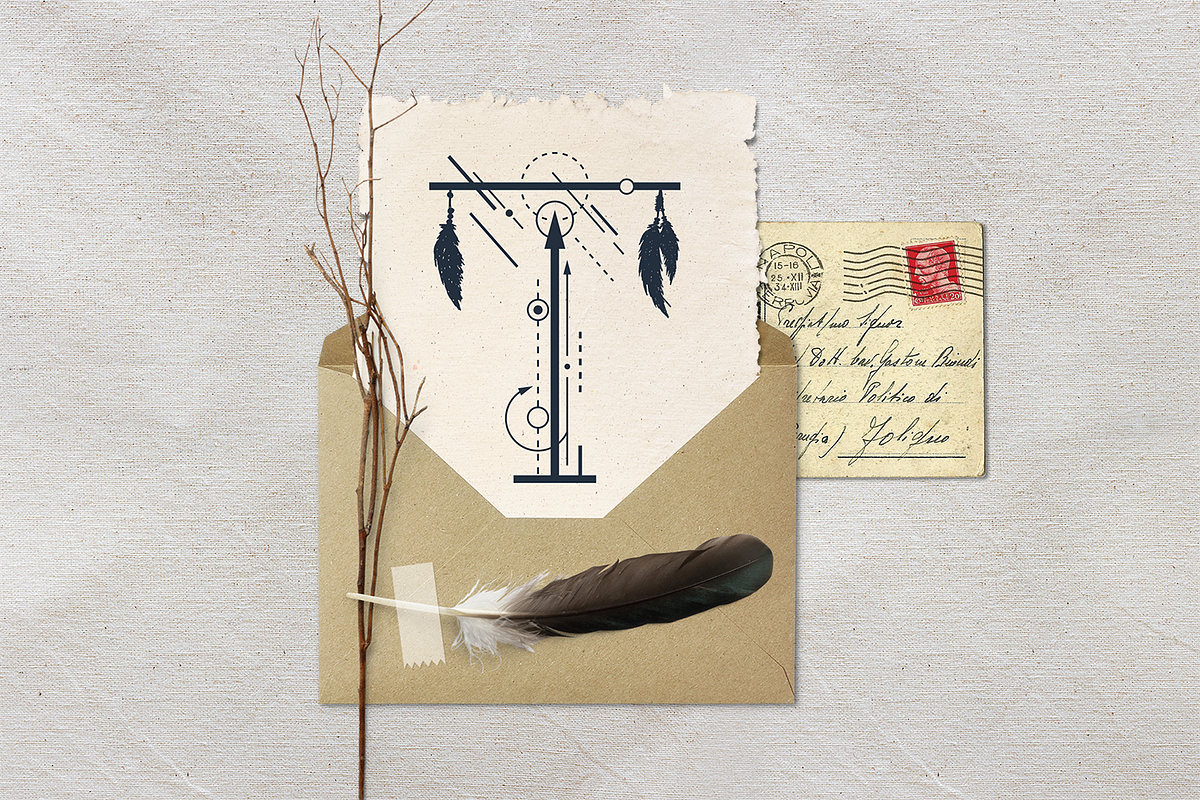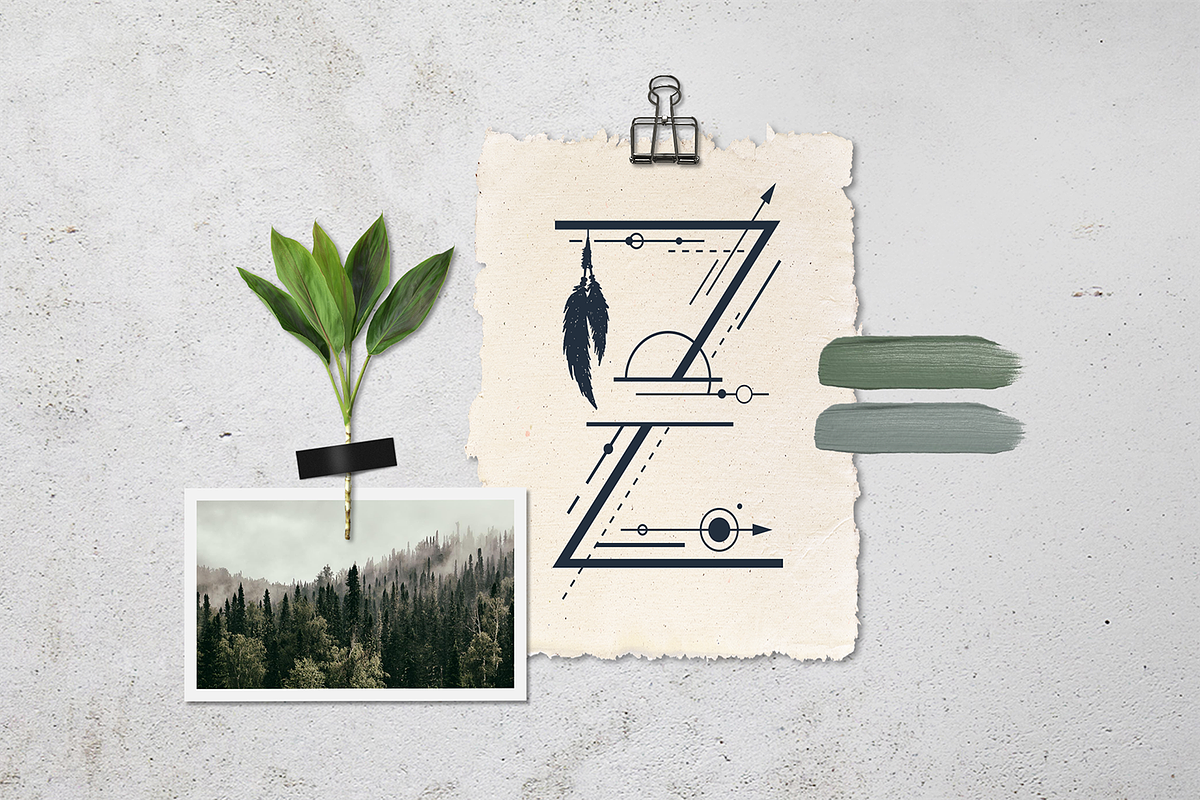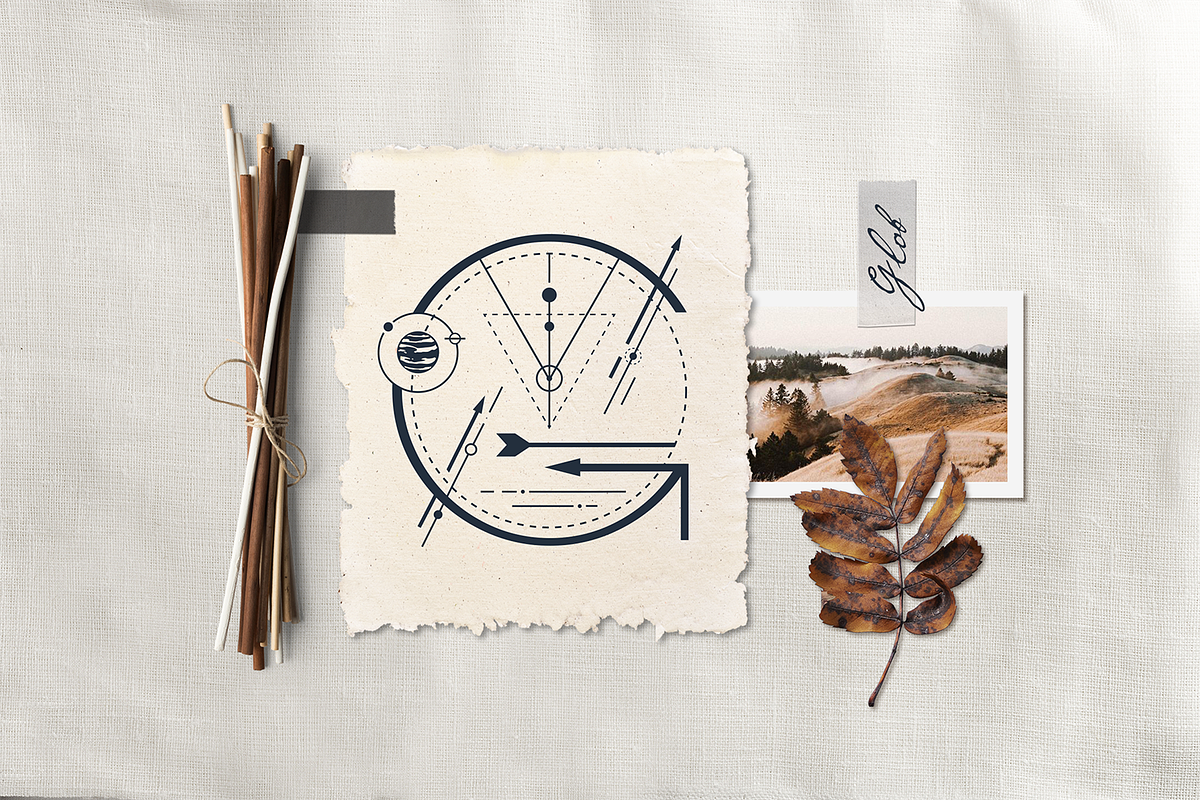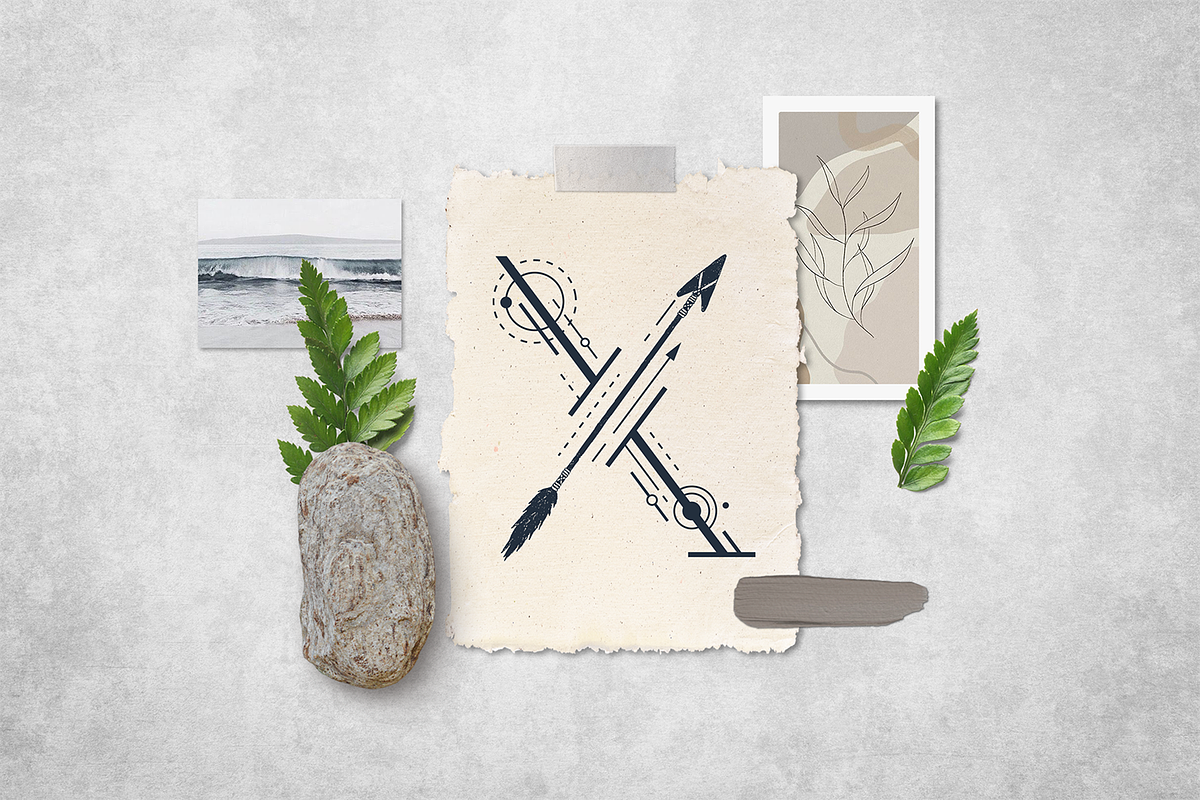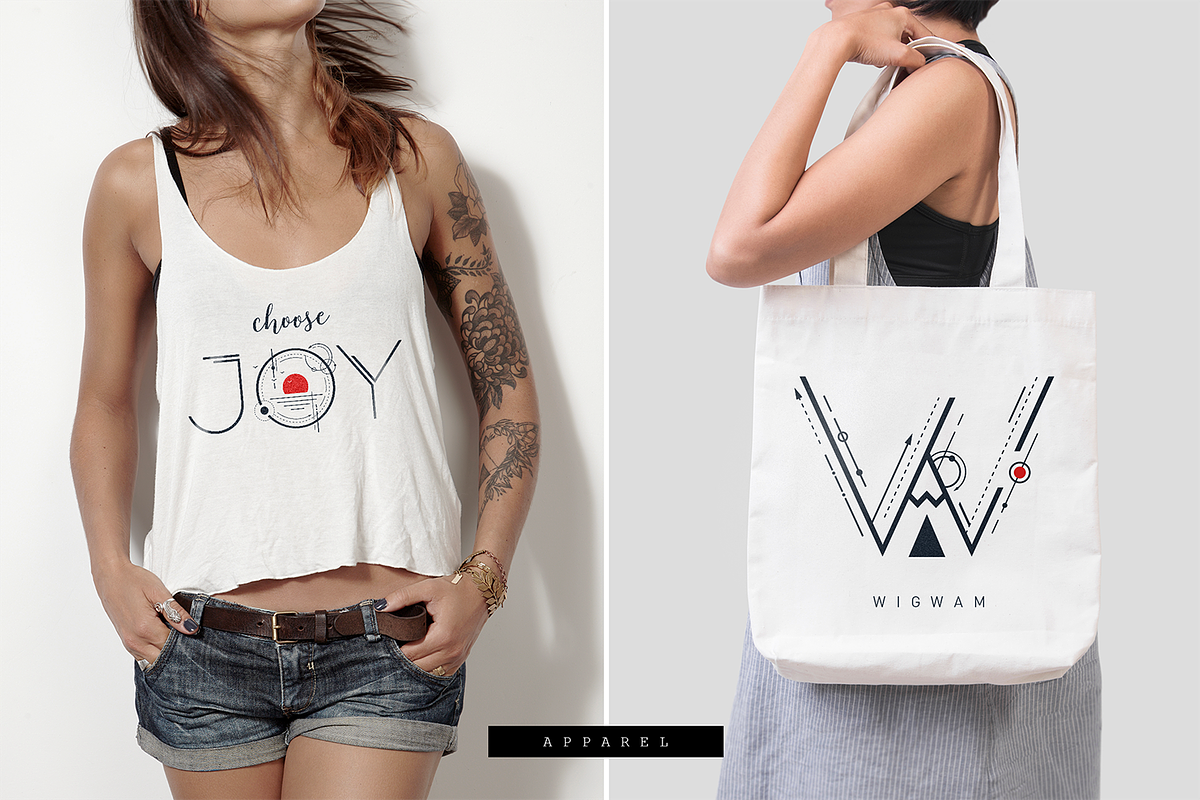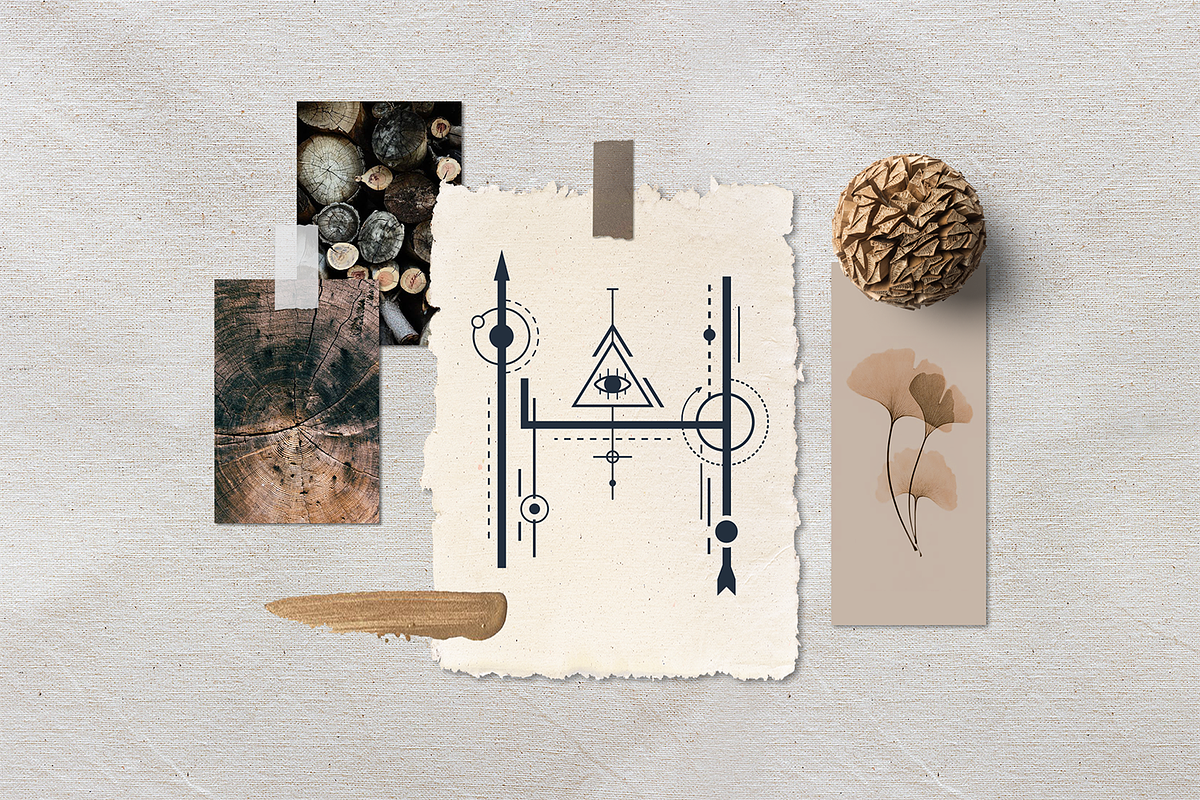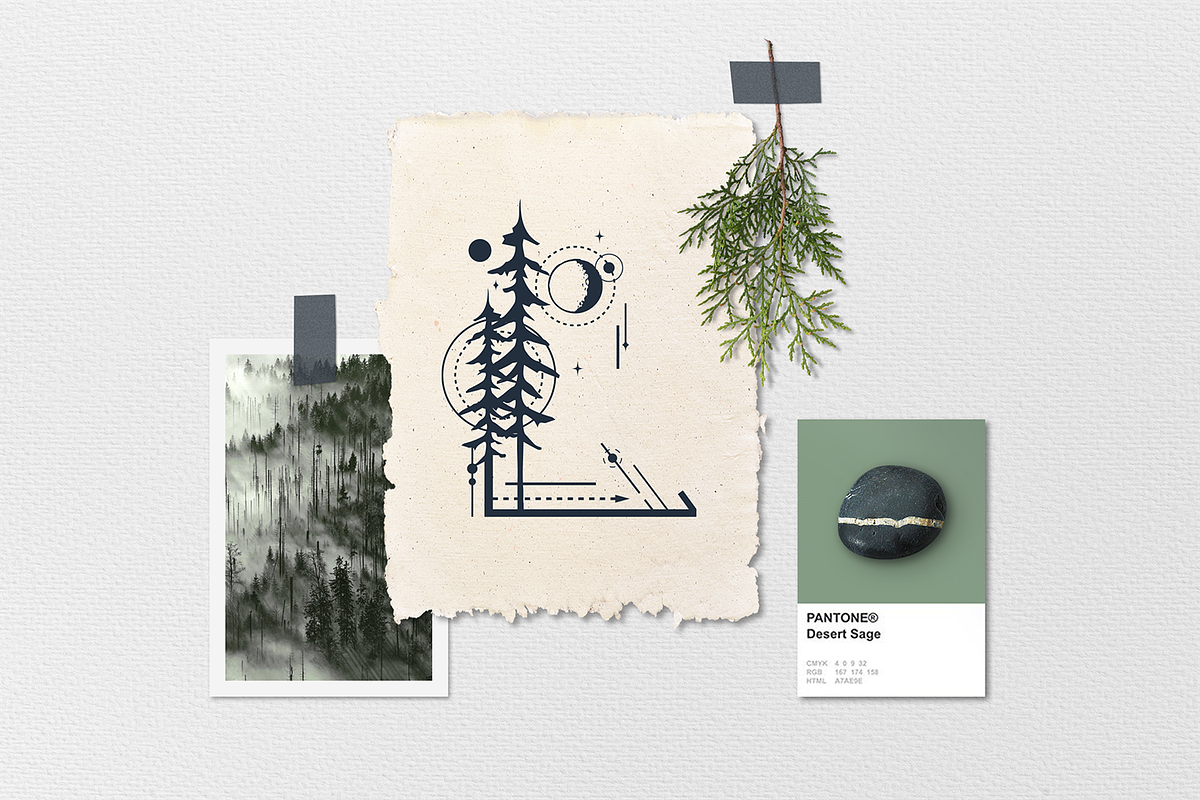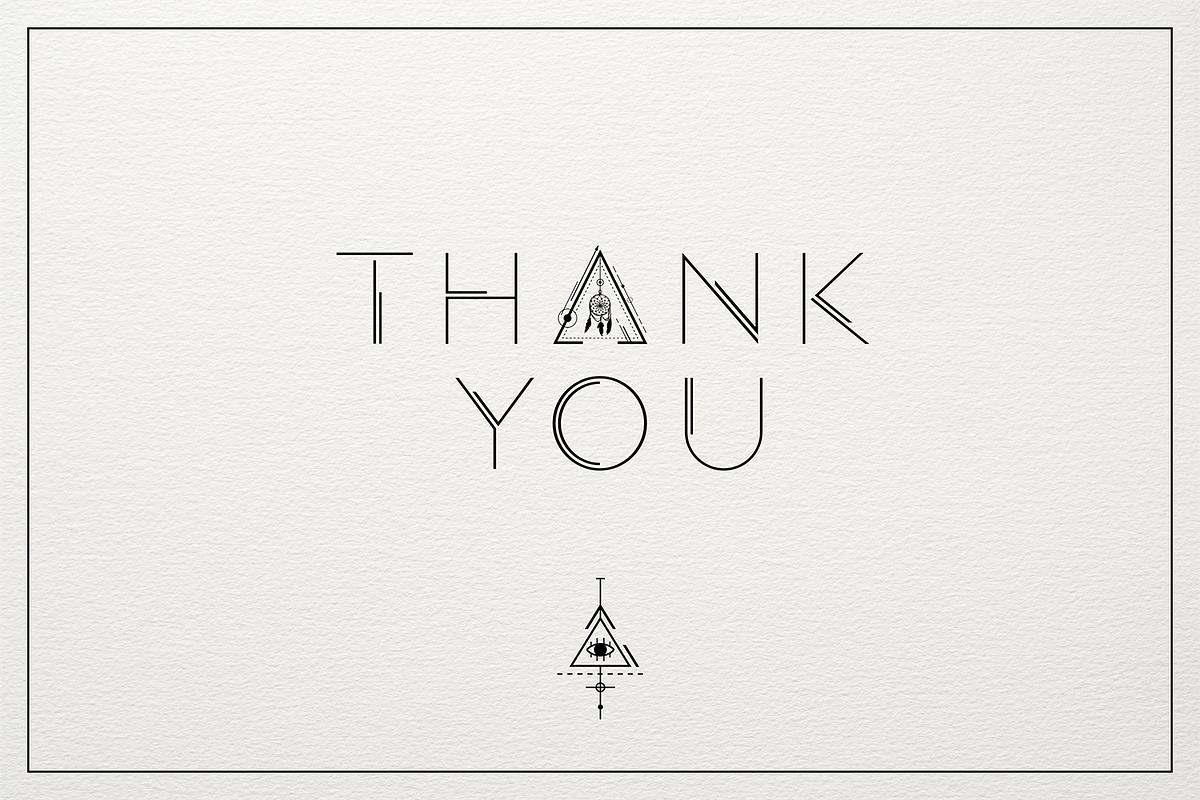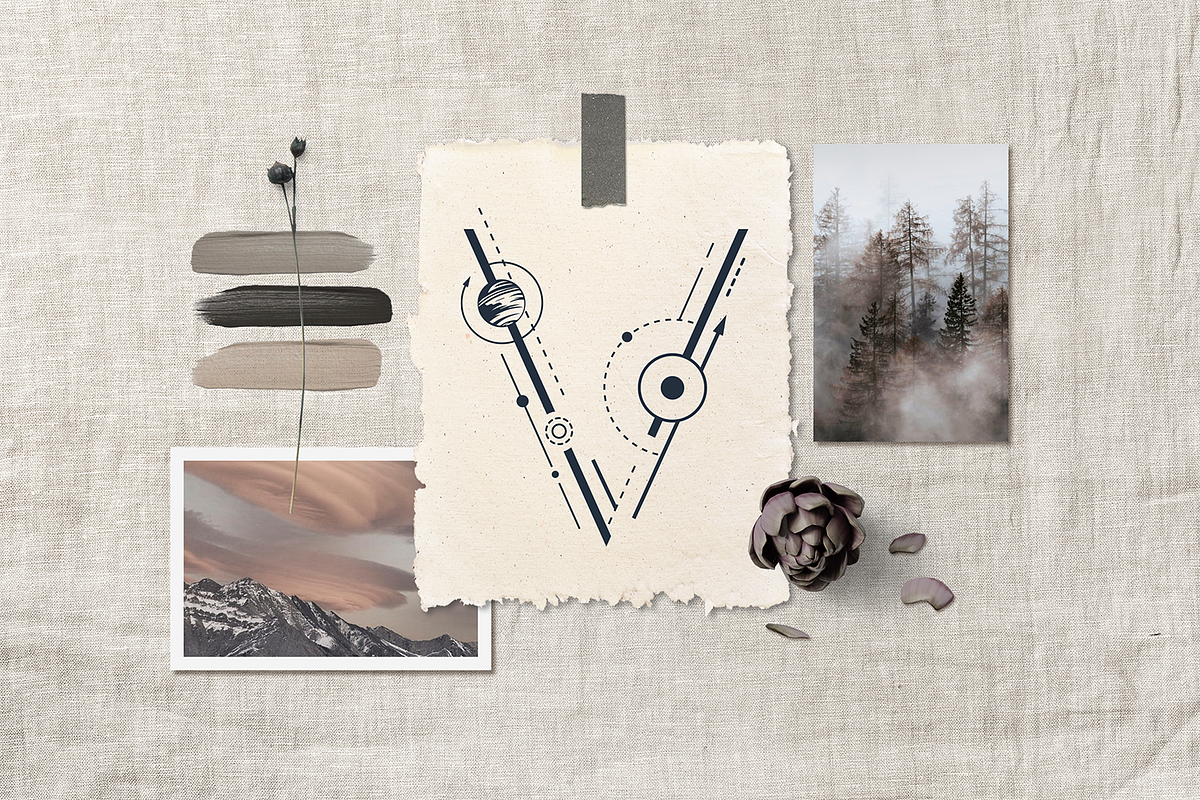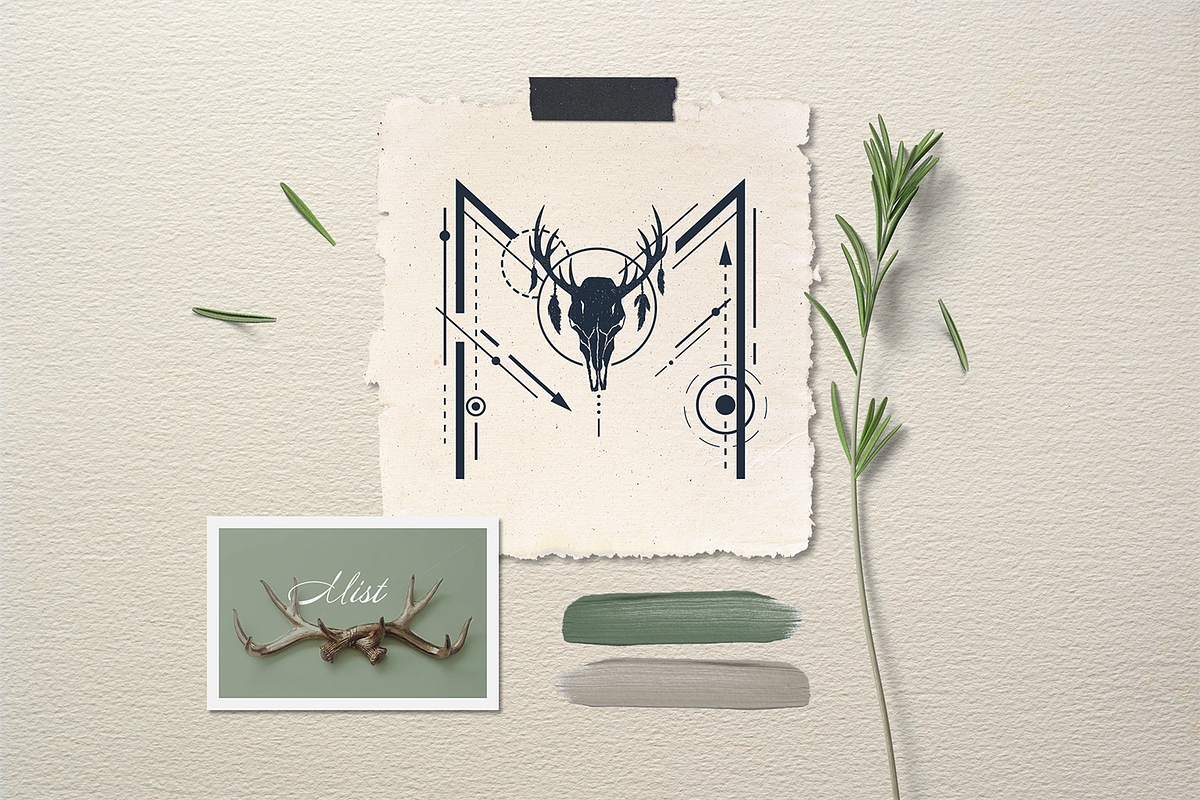
Totem. Mystical Font. Line Art Style
I'm glad to introduce my new mystical geometric font «Totem».
«Totem» is a thin line font in ethnic style, uppercase is decorated with geometric and mystical elements. This font will help you create invitations for boho parties, design prints for outfits, decorate your home. You can also use individual letters and symbols to create unique logos and tribal tattoos.
30 Vector Geometric And Mystical Symbols:
- Font has uppercase, lowercase letters and numbers